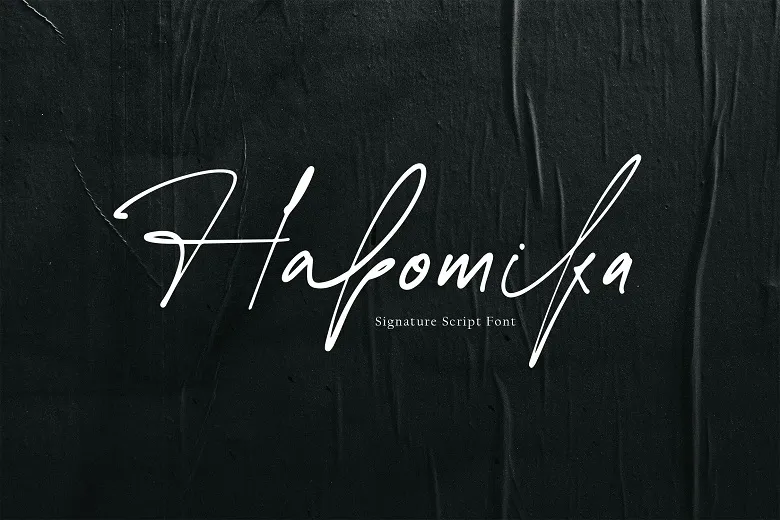
Habomika Font the new signature script font you’ll want to use for all your projects. Habomika comes with unique character shapes that make it suited to being used as an artistic piece of work which can be used to complement any design.